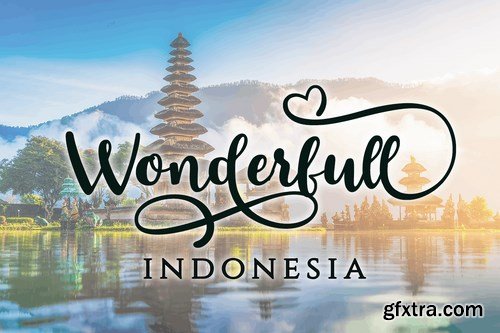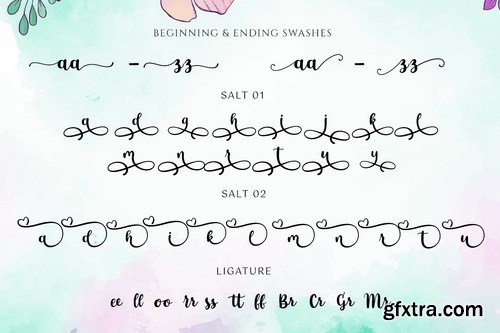
It's name Gardenia Script with Swash.
Gardenia Script with Swash a handcrafted script font with a handwritten style make this font looks elegant, natural, stylish.
Gardenia Script with Swash would perfect for handcrafted, craft, invitation, logos & branding , photography, advertisements, watermark, social media posts, product packaging, product designs, label, wedding designs, stationery, special events or anything that need handwriting taste. What Included this font : TTF Font OTF Font PUA Encoded Characters Fully accessible without additional design software. Fonts include multilingual support for; Afrikaans, Albanian, Catalan, Danish, Dutch, English, Icelandic, Italian, Spanish, Portuguese, German, Swedish, Norweigen, Polish, Indonesian, Zulu and etc Simple installations